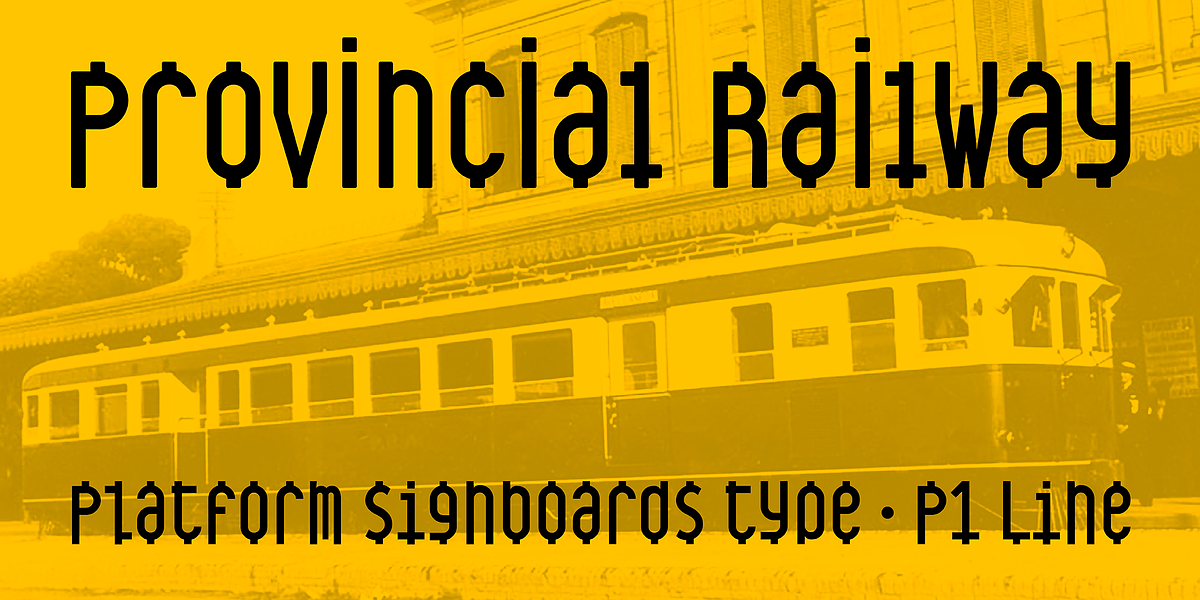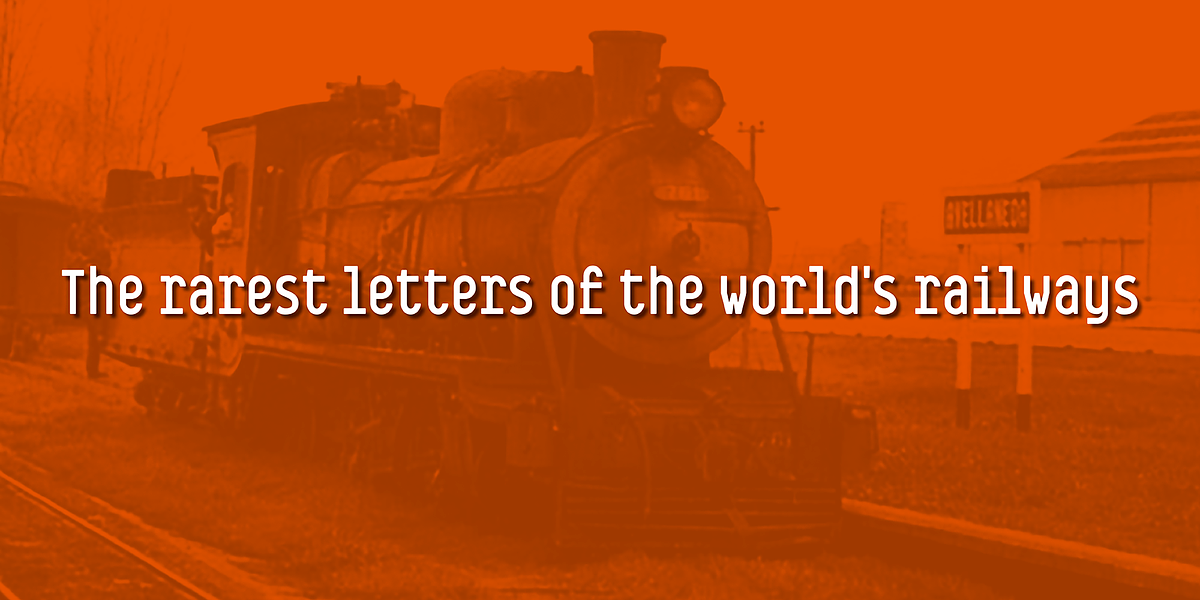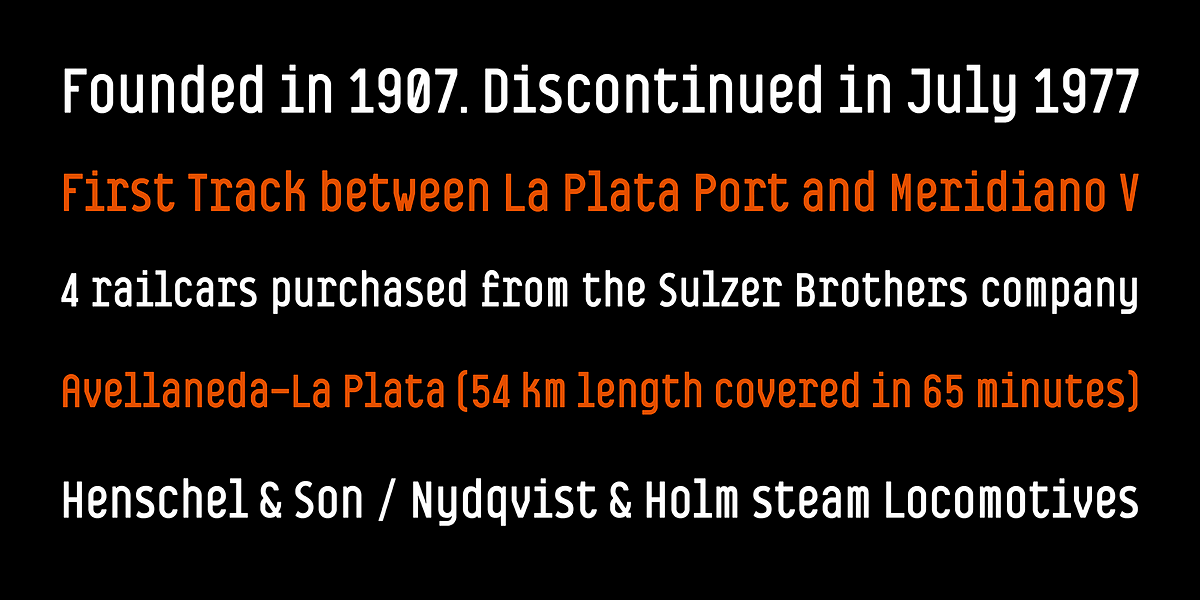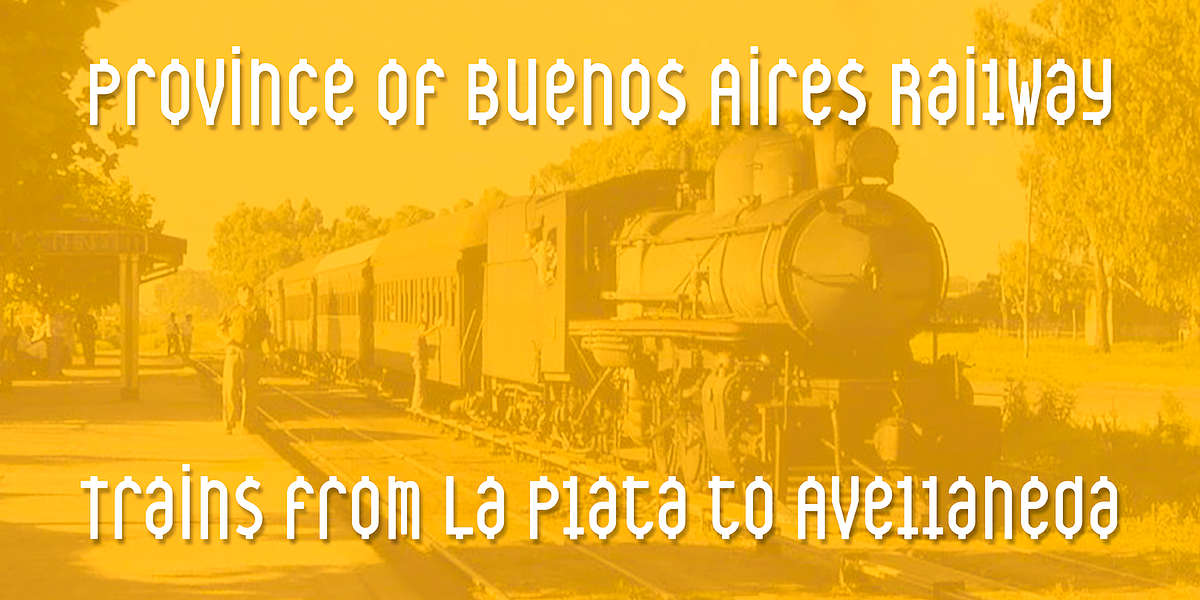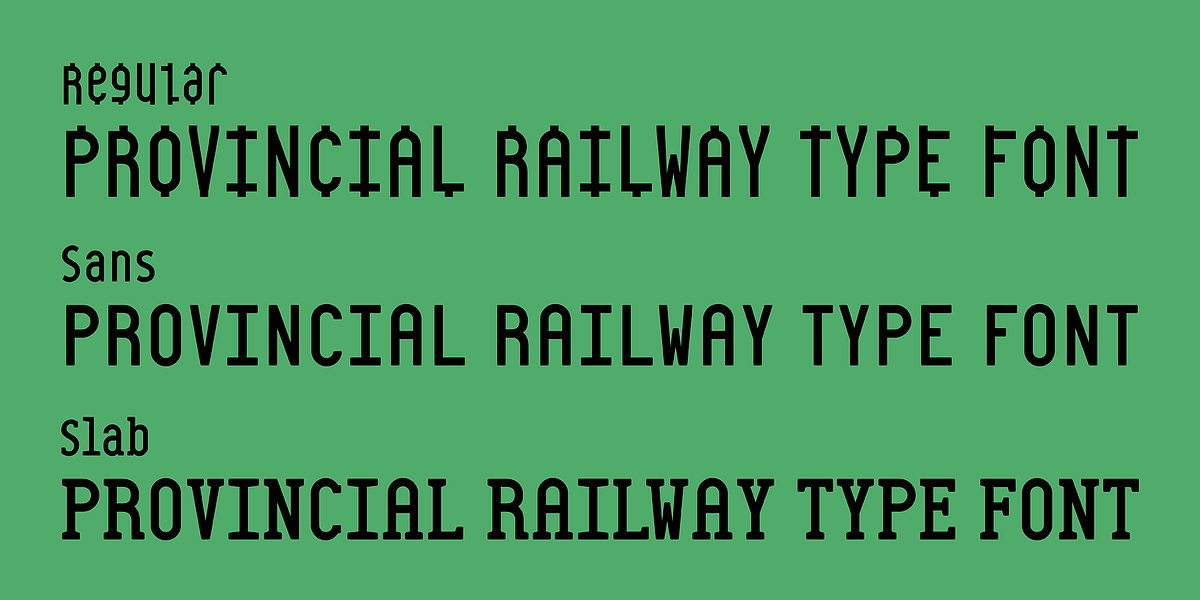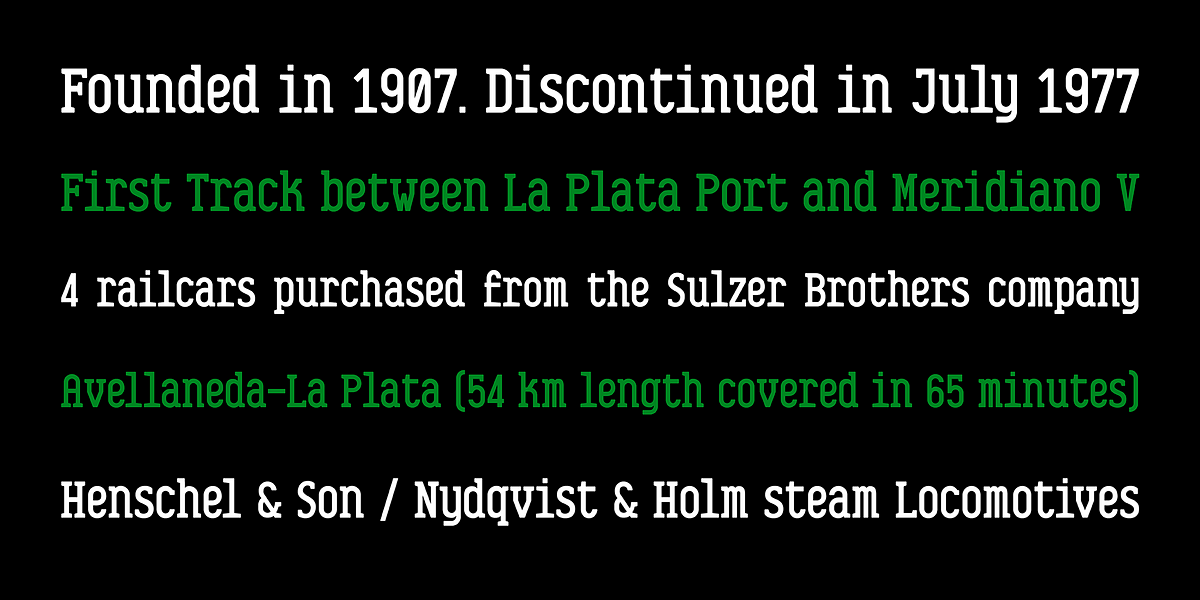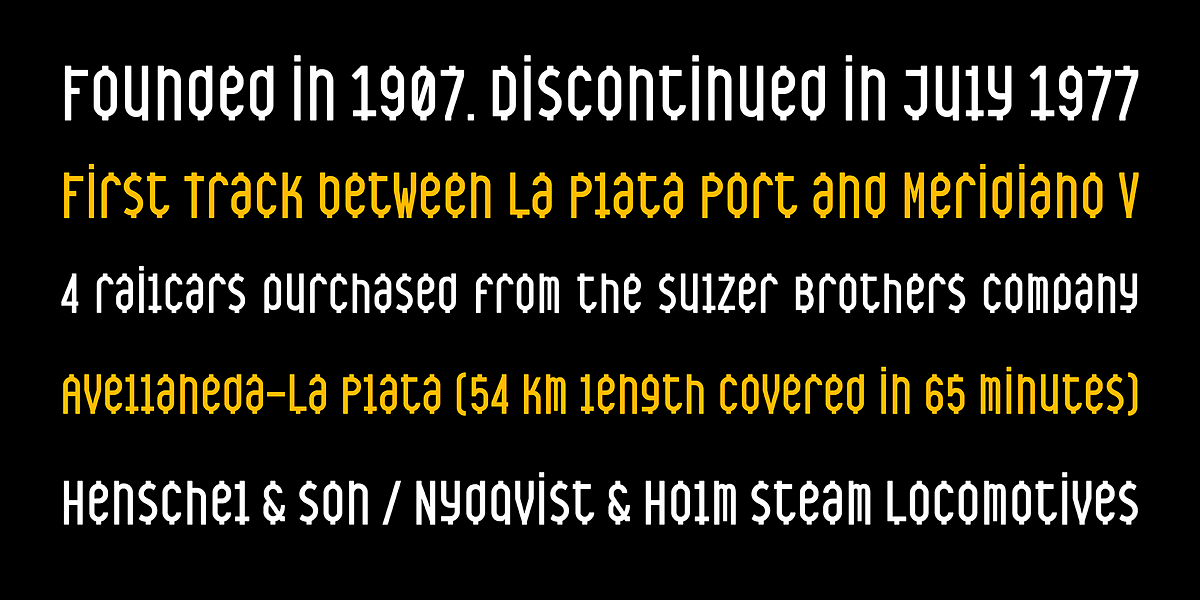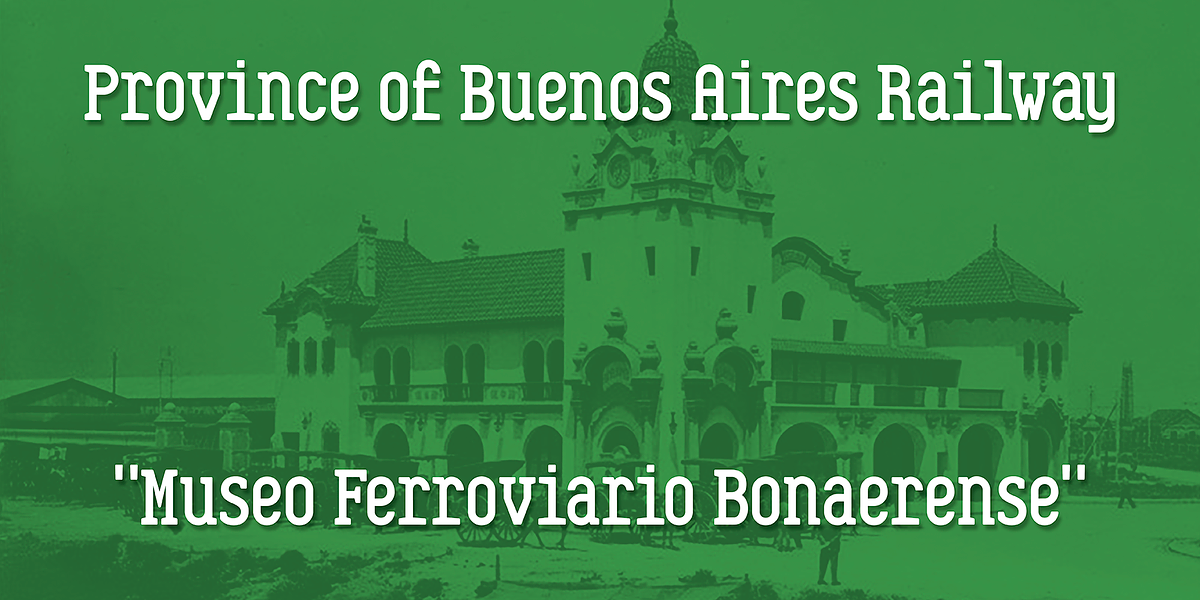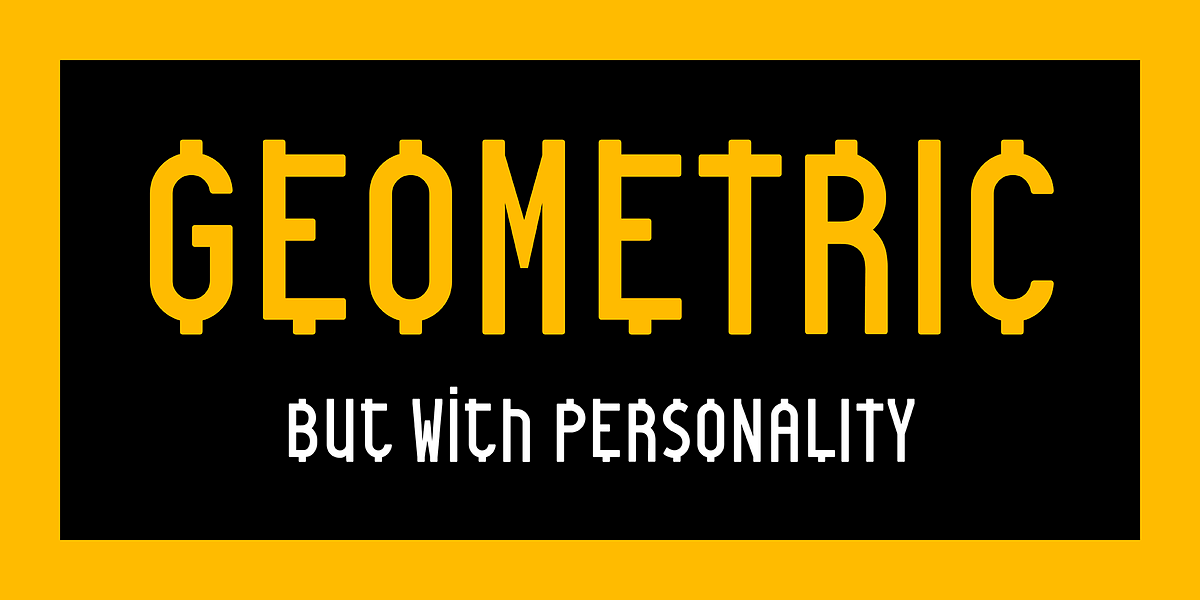
Provincial Railway
Provincial Railway is a display font inspired by the unique signage found on stations of the Buenos Aires Provincial Railway. Its design features a tall x-height and bold geometric shapes reminiscent of early 20th century constructivism. The most distinctive feature are the rectangular shapes integrated into ascending and descending strokes, creating a rhythmic visual pattern within text lines.